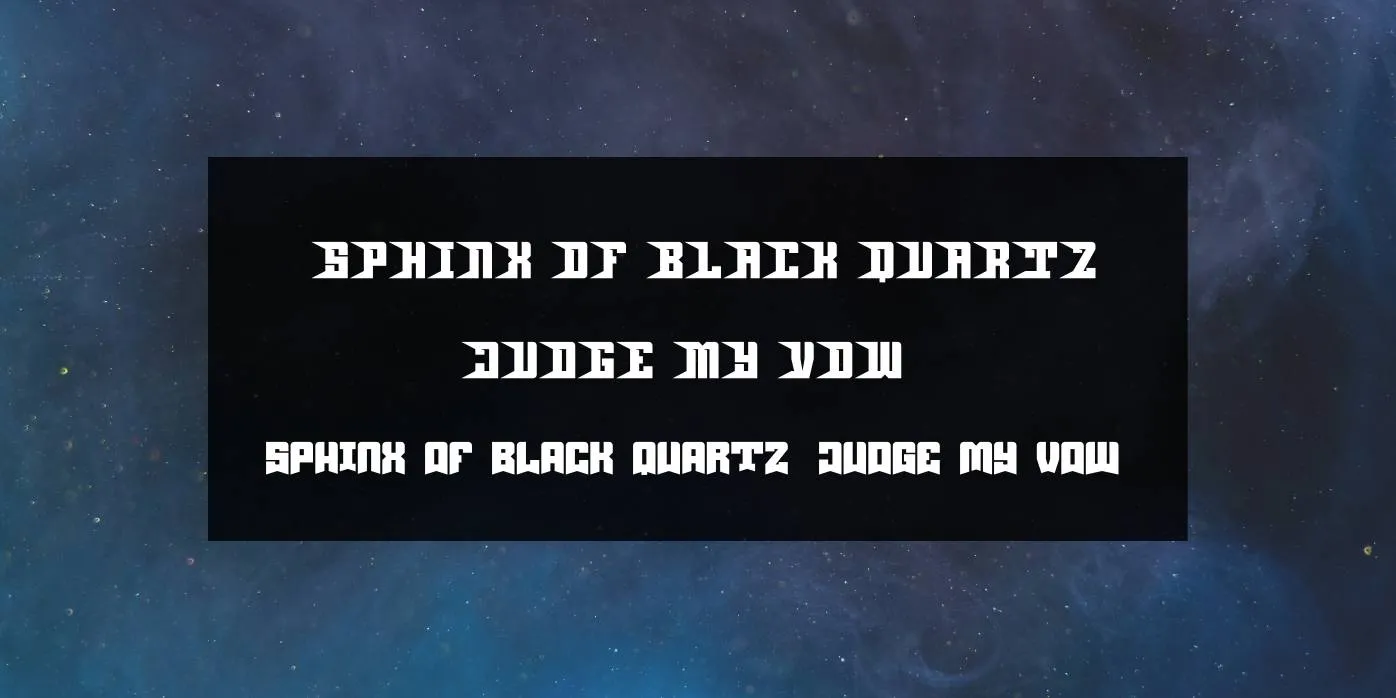
Robus Font
Today, we present Robus Font which belongs to the techno font family. Toko Laris Djaja is the main creator of this family.  It is an old-style techno typeface with classic and advanced features. It is well-suitable and specified for the CSS family. The character set of Robus font includes small caps, old-style figures, swashes, characters, and fractions.
It has a large x-height that makes it best for many design projects. The wide space inside the letters is well balanced, giving the text a clean and airy feel. It is not a part of google fonts. Robus Font is a very versatile typeface and can be used in a variety of applications.